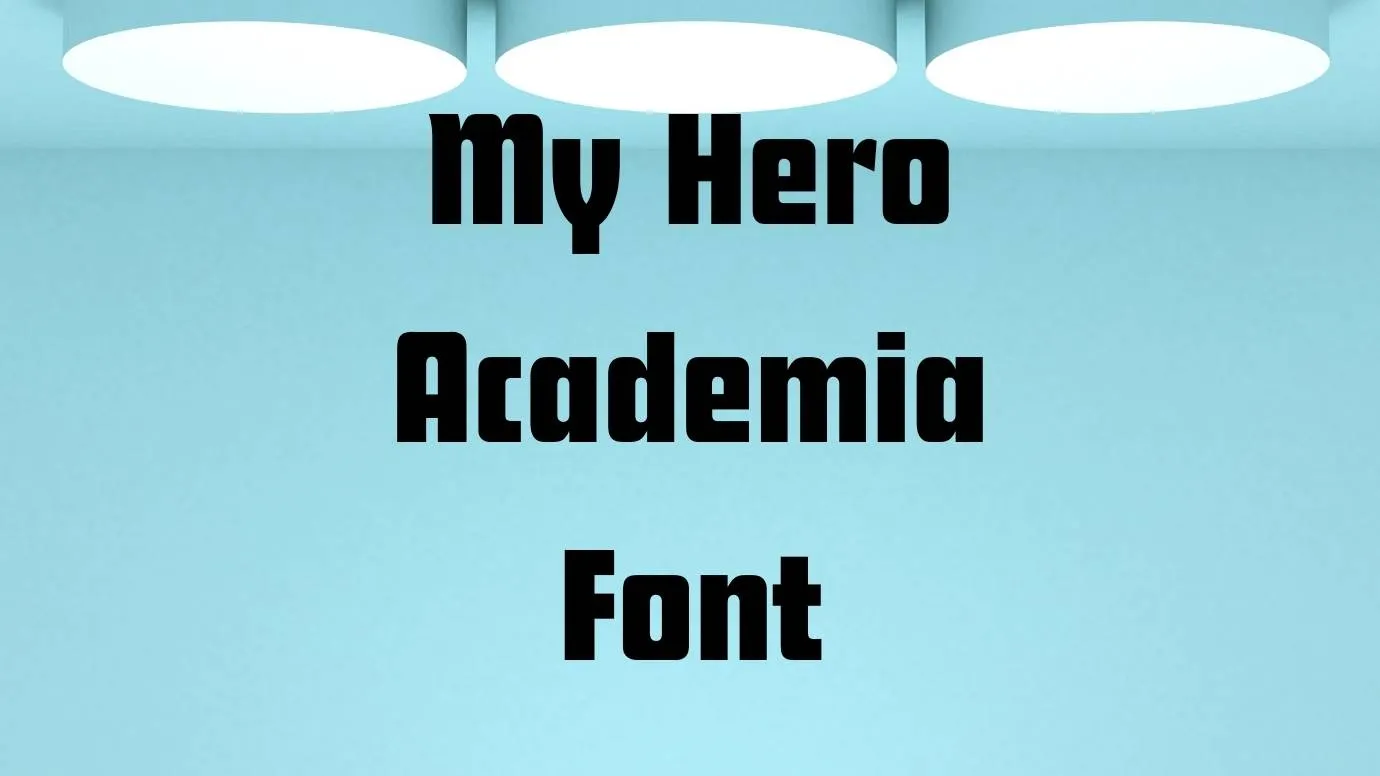
My Hero Academia Font Family is a display typeface. My Hero Academia is a Japanese series. It was created by Kohei Horikoshi and released by Shueisha in 2014. The font that is used in this series is known as futura display font.
It was designed by Paul Renne. This beautiful typeface is perfect for headline purposes due to its bold letters. It has simple text designs and comes in more than 100 glyphs.
My Hero Academia Font